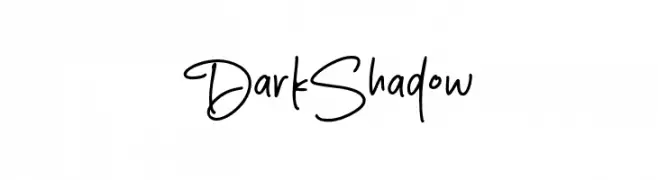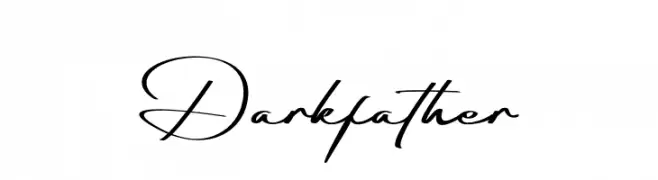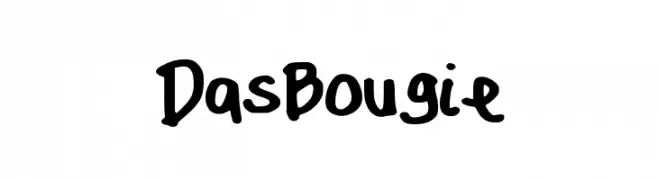
A playful, hand-drawn font with a whimsical and informal style.
A flowing, cursive font with a natural handwriting style.
A refined, decorative script with thin, flowing lines and ornate swashes.
A bold, expressive brush-style font with dynamic strokes.
A playful, casual handwritten font with smooth, flowing lines.
A playful, handwritten font with a whimsical and casual style.
An elegant, whimsical font with flowing, interconnected strokes and decorative flair.
Elegant script font with decorative swirls.
A playful, handwritten font with an informal and organic style.
A playful and elegant script font with flowing, cursive letterforms.
An elegant and whimsical script font with flowing, interconnected letterforms.
An artistic, cursive font with elegant loops and swirls.
Expressive handwritten script with a casual, flowing style.
A playful, casual handwritten font with smooth, rounded lines.
A playful, bold font with rounded, thick strokes and a hand-drawn feel.
A refined, cursive handwritten script with thin, flowing lines.
A playful, handwritten-style font with tall, narrow characters and smooth curves.
Casual handwritten font with a loose style.
Casual handwritten font with playful, informal style.
A playful, rounded font with smooth curves and uniform stroke width.
A fluid, cursive script font with elegant, connected characters.
A casual, handwritten font with a dynamic and energetic style.